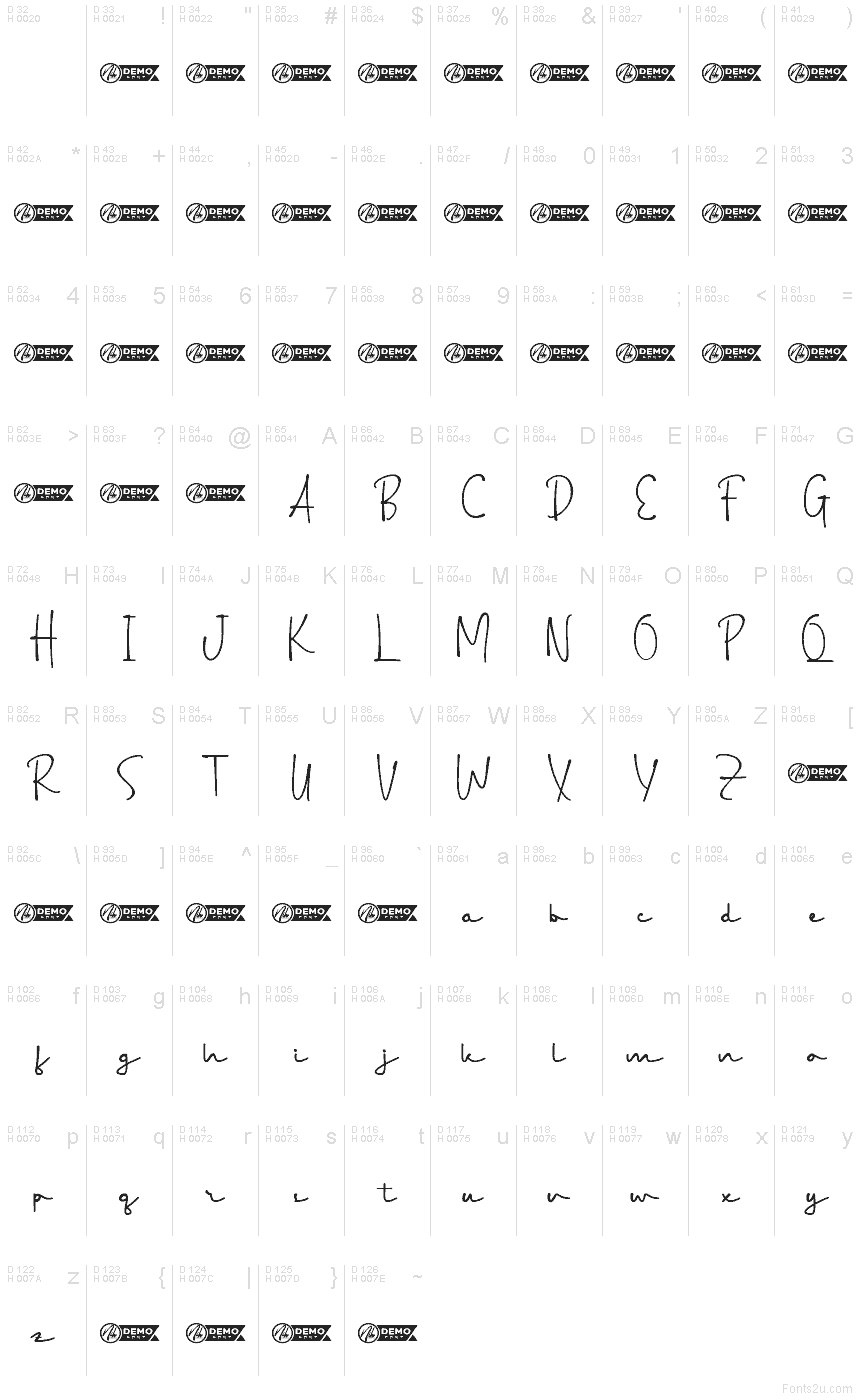
Hair Color font by NihStudio is a free handwritten script typeface that feels like a note dashed off with a smooth black gel pen. The letters are tall and relaxed, with easy loops and slightly uneven connections that give it a friendly, human warmth without getting messy. Its light, inky strokes and airy spacing bring a casual, lifestyle vibe that feels right at home in the beauty and fashion world.
Using Hair Color, you can give salon branding, product packaging, YouTube thumbnails, social media posts, thank-you cards, and beauty blog graphics a fresh, personal touch. This free font works beautifully as a signature-style headline, especially when paired with a clean sans serif for body text. Keep it slightly oversized so the delicate strokes stay crisp and legible in both digital and print layouts.